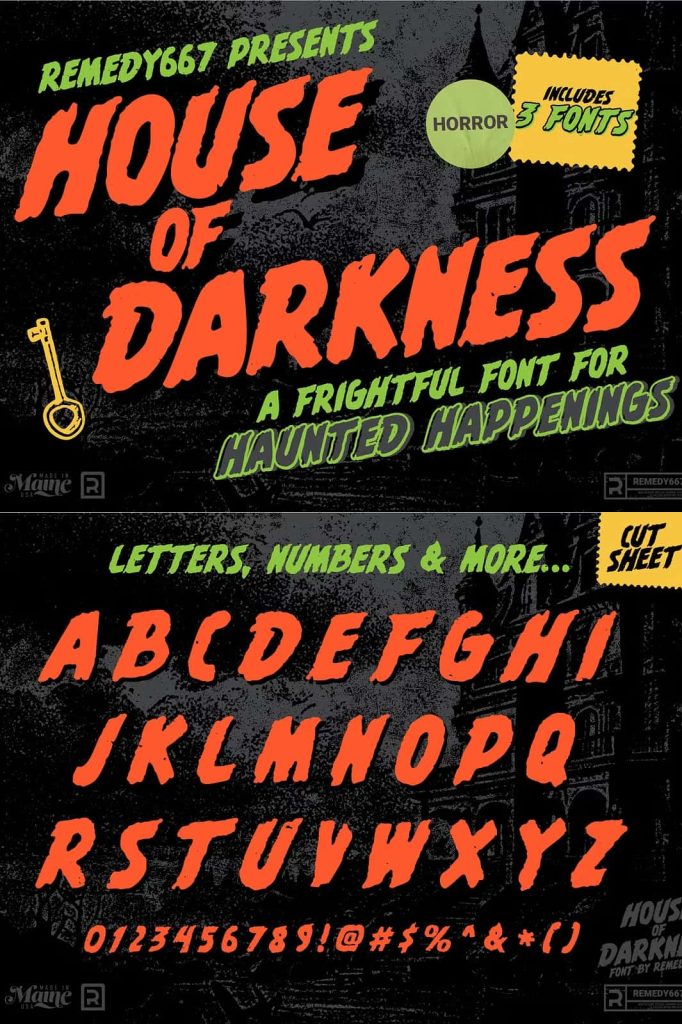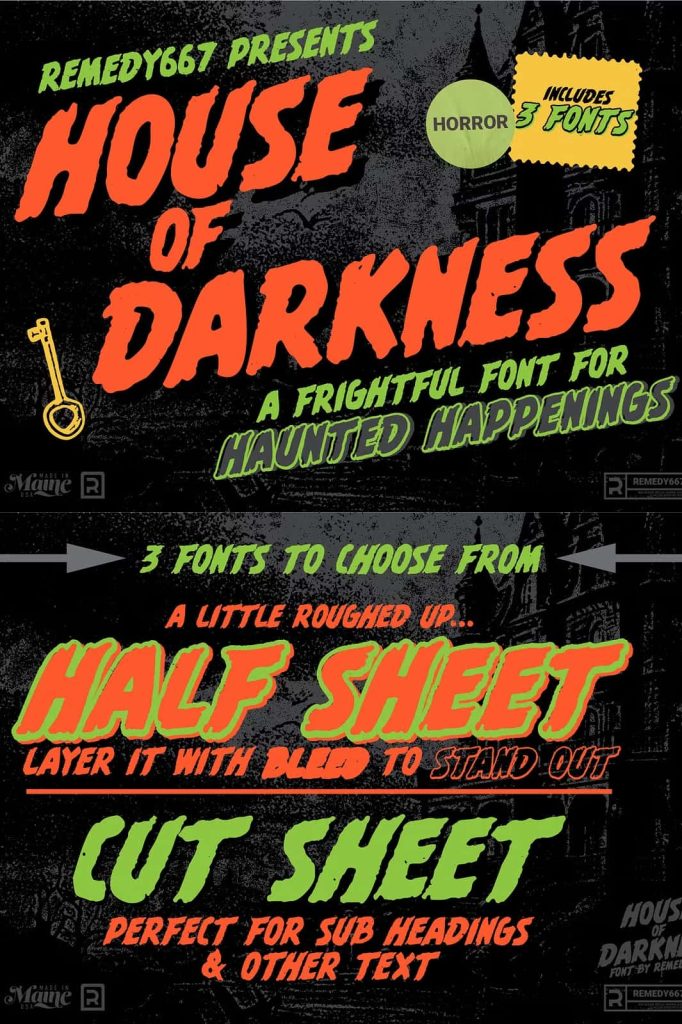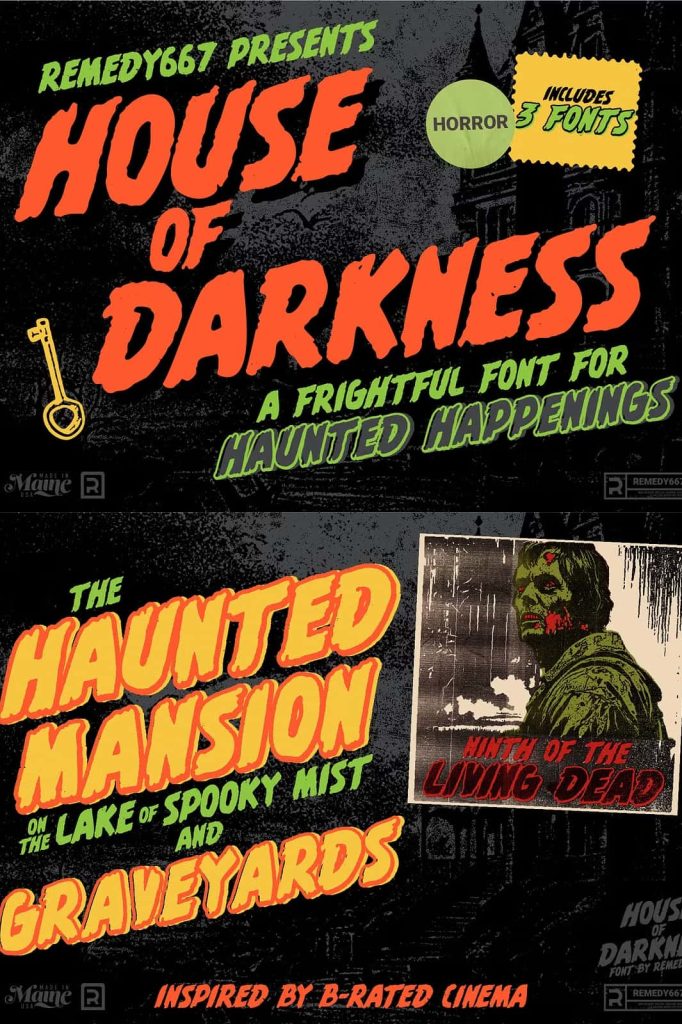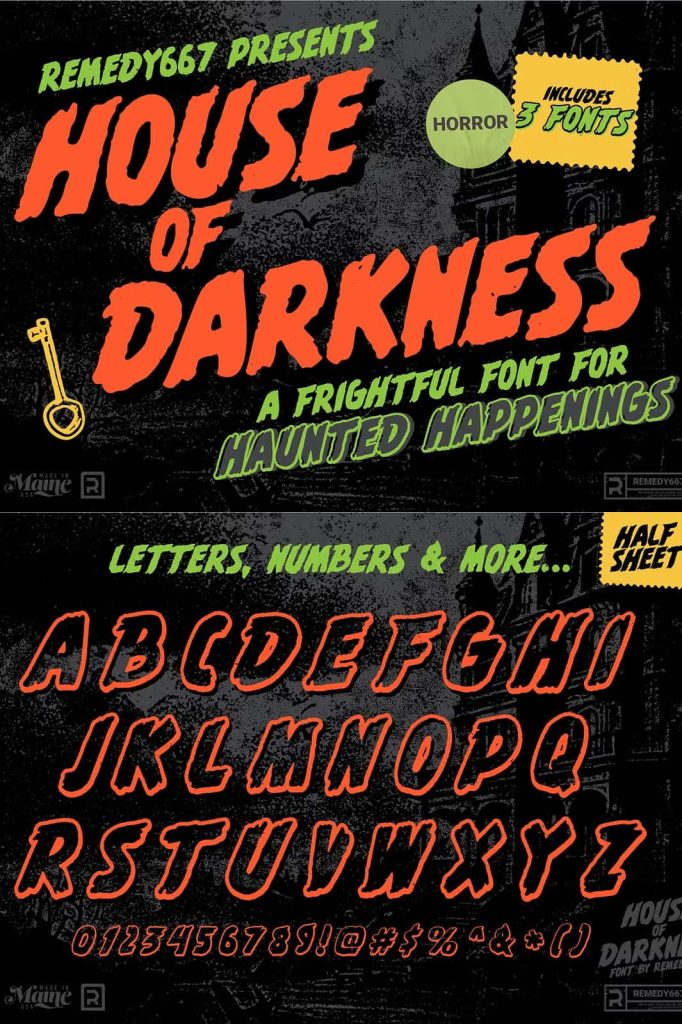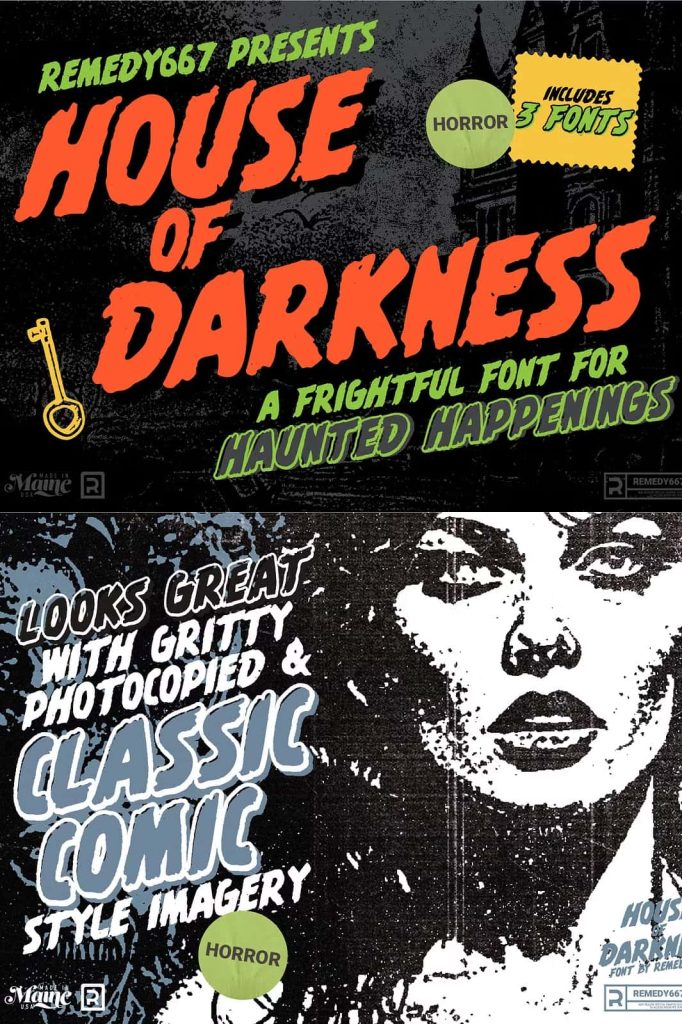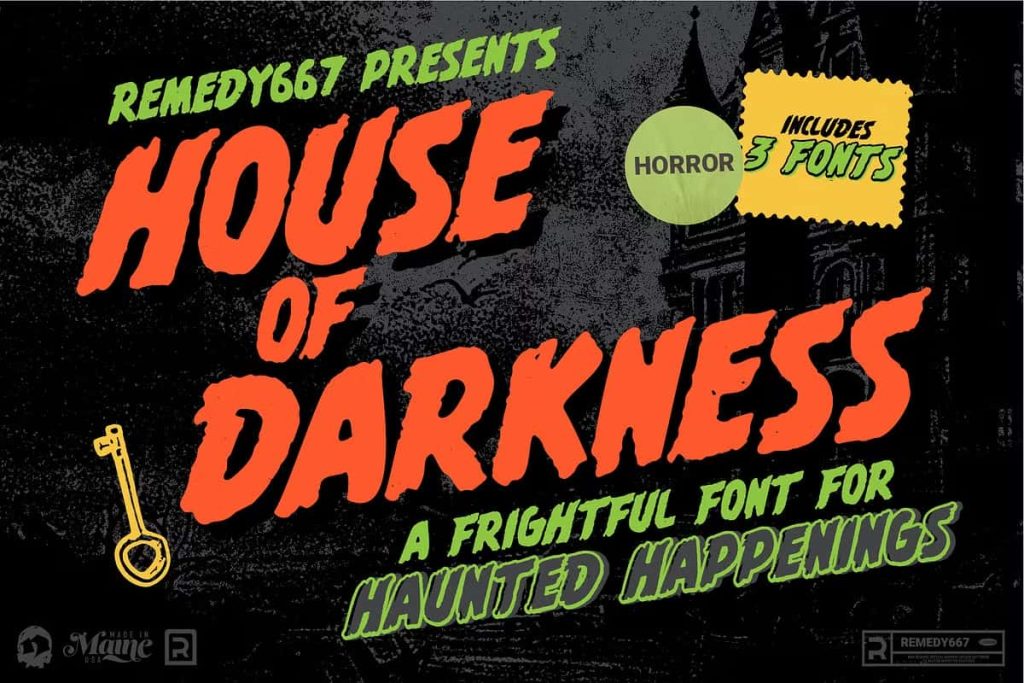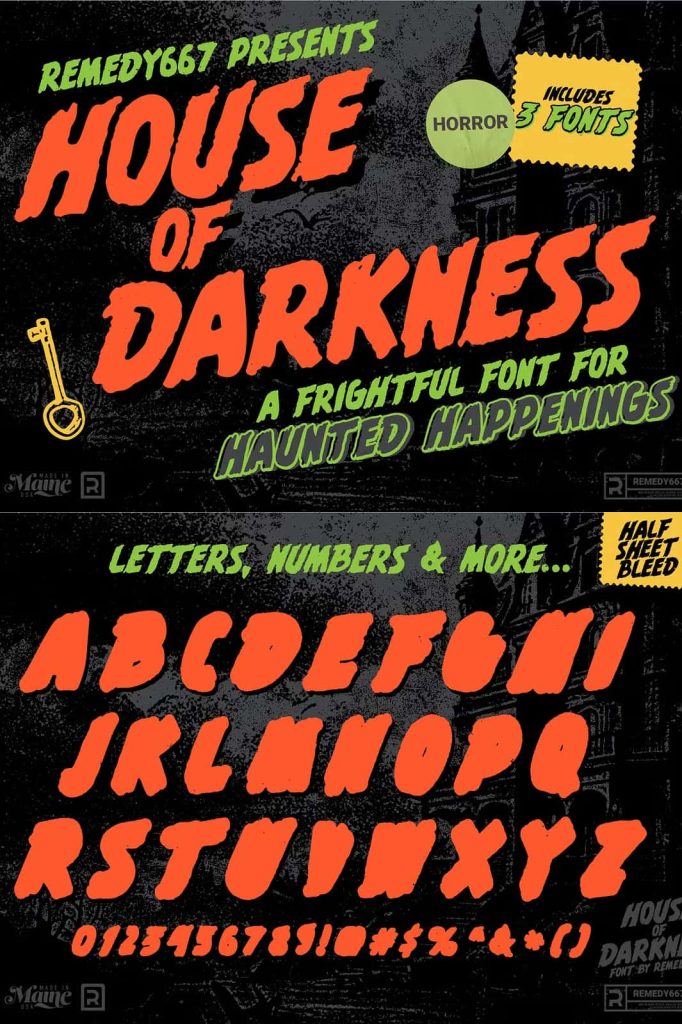
Unleash some classic spooky style with House of Darkness! More than just a font, House of Darkness packs a punch with 3 unique fonts, a vector pack and an 8-page zine. Whether you’re designing spooky posters, cooking up Halloween party invites, or working on a graphic novel… House of Darkness has got you covered with everything you need to add a touch of haunted to your project.